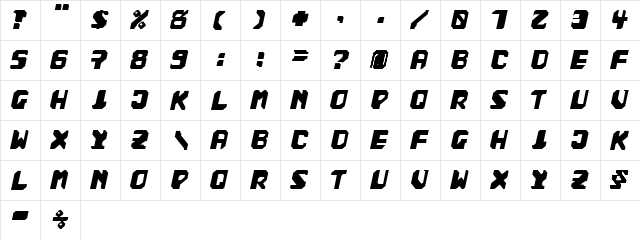
bad fag Regular Font Preview
bad fag Regular
bad fag Regular Font Details
Design Context for bad fag Typeface
bad fag is a composed and adaptable typeface that performs quietly and consistently across a wide range of design contexts.